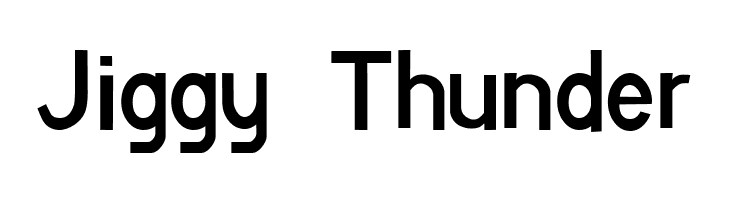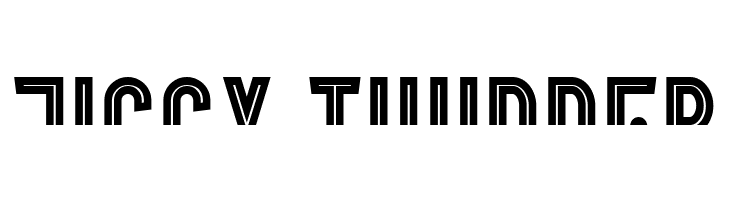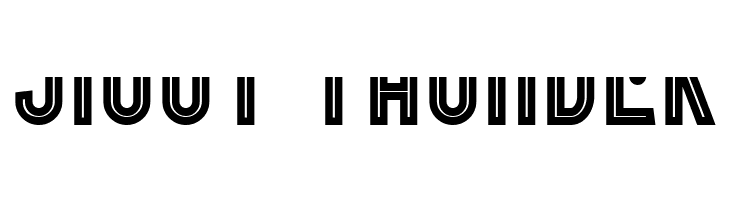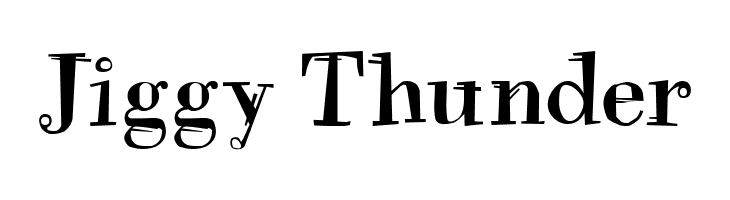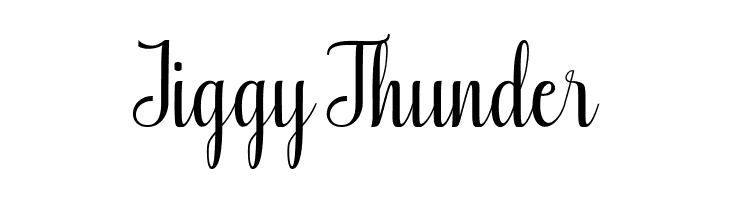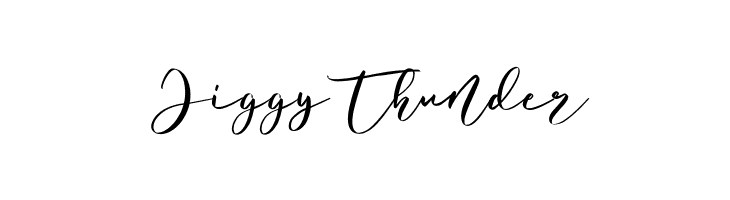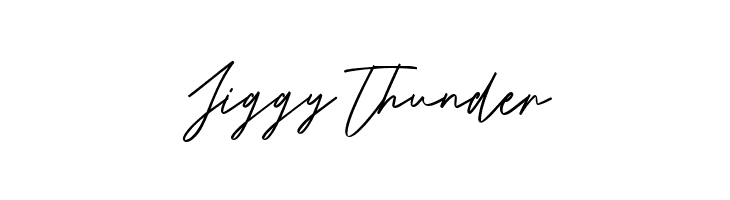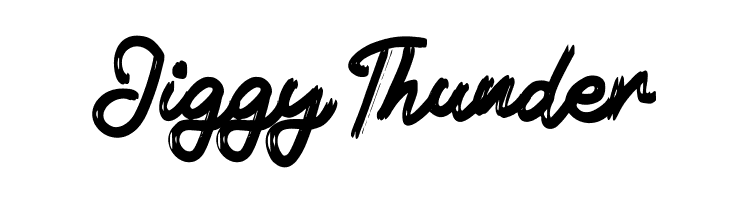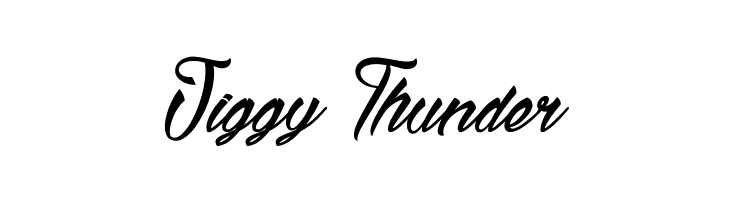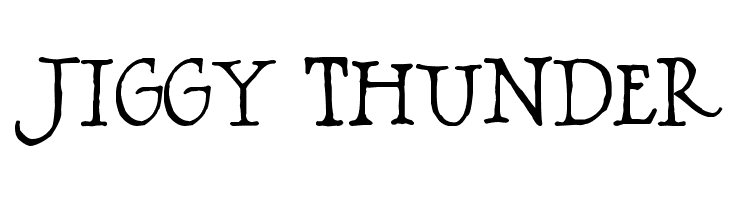
A bold, geometric font with a futuristic and modern design.
A bold, geometric, and italic font with a modern, futuristic style.
Ornamental font made of decorative border and divider elements.
A bold, angular font with a futuristic, sci-fi aesthetic.
A bold, 3D font with a futuristic and dynamic style.
A bold, angular, and futuristic condensed font with tight spacing.
A bold, condensed, and italicized font with a futuristic and angular design.
A bold, futuristic font with sharp, angular edges and a dynamic stance.
A bold, italicized, and expanded font with a futuristic and dynamic style.
A bold, italicized font with sharp, angular lines and a futuristic look.
A bold, modern sans-serif font with geometric influences and excellent readability.
A playful, handwritten font with bold strokes and a casual style.
A bold, modern sans-serif font with clean lines and excellent readability.
A bold, dynamic font with sharp, angular strokes and a hand-drawn feel.
A bold, blocky font with strong, impactful characters.
A whimsical, decorative font with vine-like embellishments, perfect for fantasy themes.
A whimsical, hand-drawn style font with playful and irregular strokes.
A flowing, elegant script font with bold, cursive strokes.
A flowing, elegant script font with interconnected letters and a sophisticated style.
A bold, expressive brush script font with dynamic strokes and artistic flair.
A diverse set of black and white botanical illustrations with varying levels of detail.
Botanical illustration font with plant and nature motifs for each character.
A bold, artistic serif font with playful, modern twists.
A decorative set of bar and beverage-themed icons.
An elegant, flowing script font with smooth, cursive strokes.
A bold, geometric font with intricate patterns for striking visual impact.
A playful, geometric sans-serif font with decorative dots.
A stylish and elegant script font with flowing, interconnected letterforms.
A stylish, flowing script font with a natural handwriting feel.